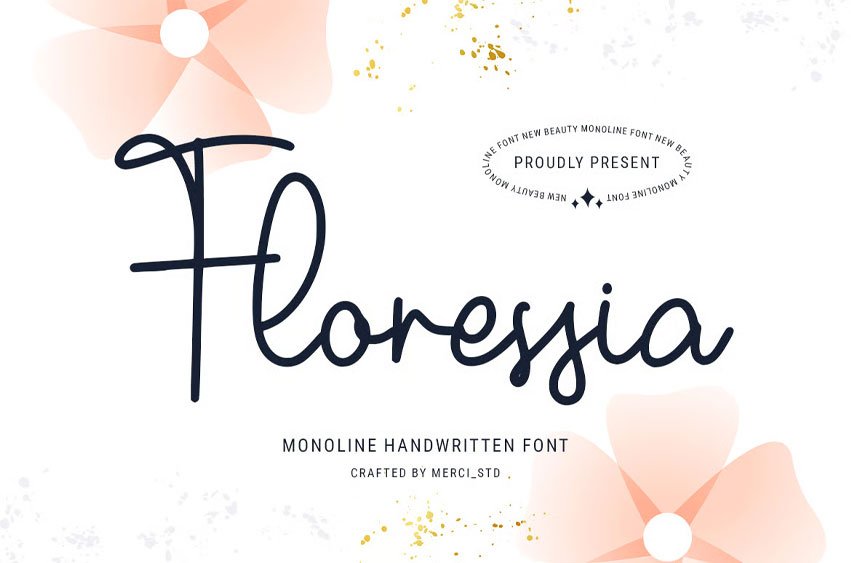
Floresia Font is a monoline handwritten font with soft curves and a beautiful modern signature style.
Designed for elegant branding, beauty packaging, invitations, logos, social media posts, and creative layouts, this font creates a warm and sophisticated handwritten impression for premium visual projects.
- Uppercase Letters
- Ligature & Alternate Character
- Unique Hand-Drawn Style